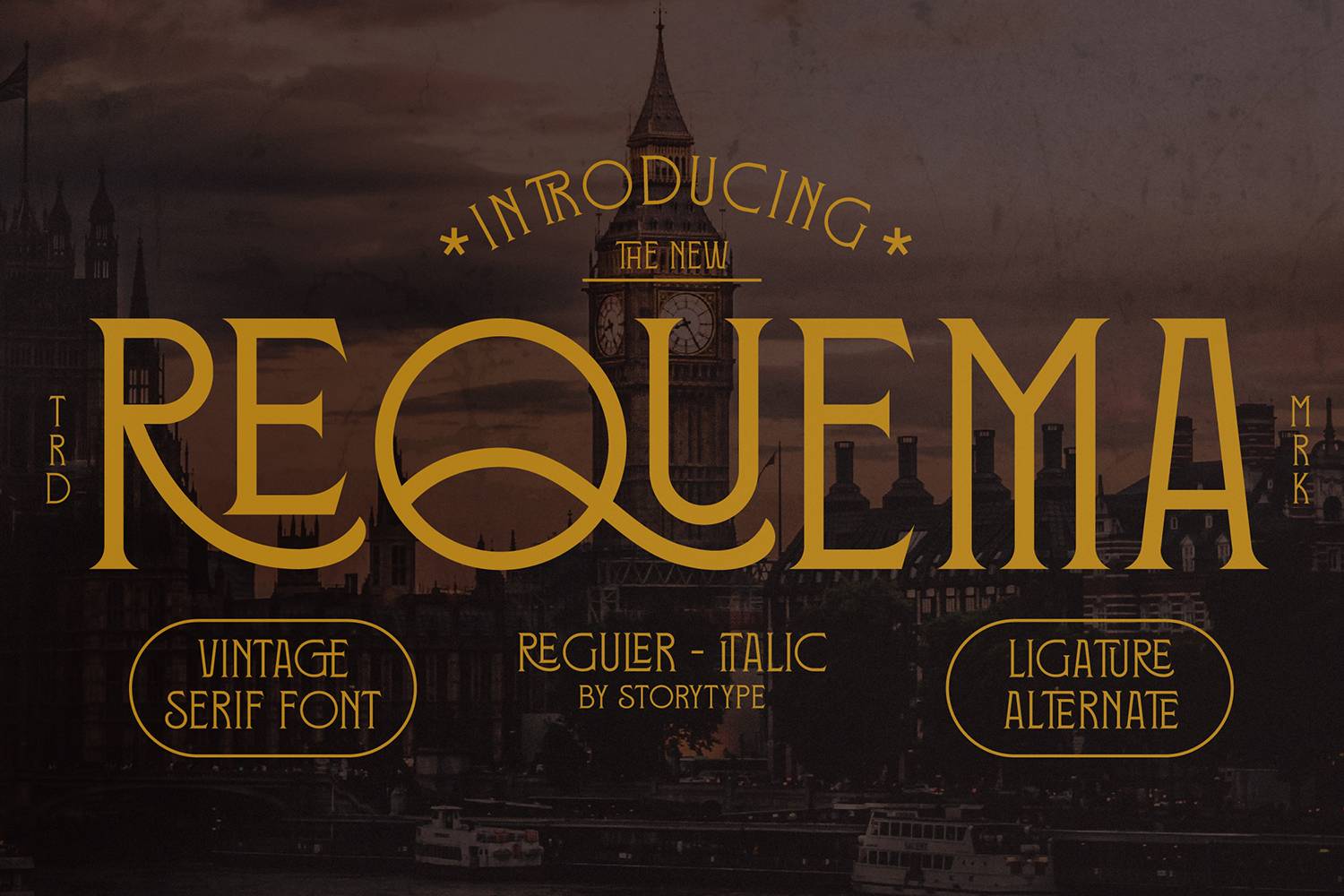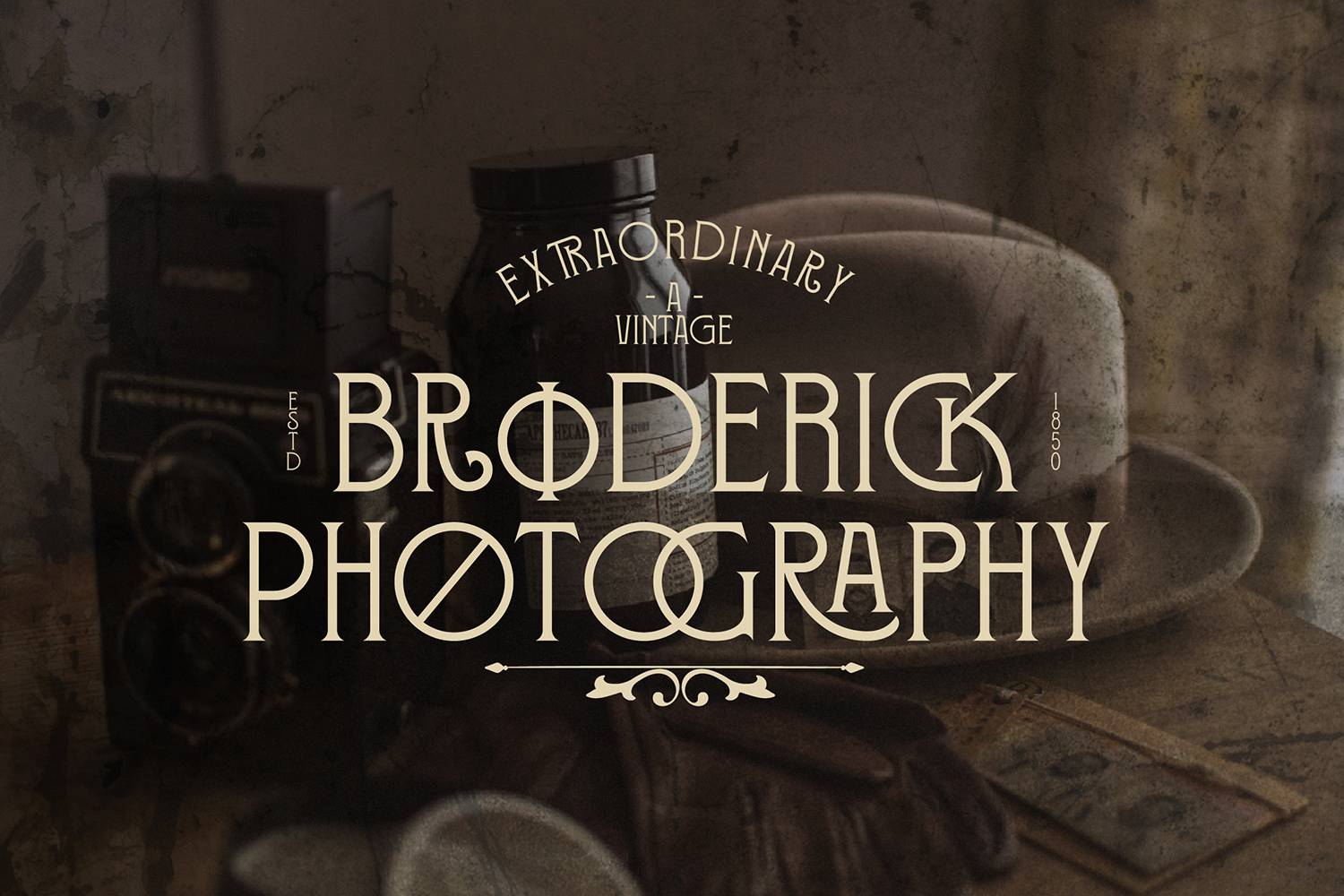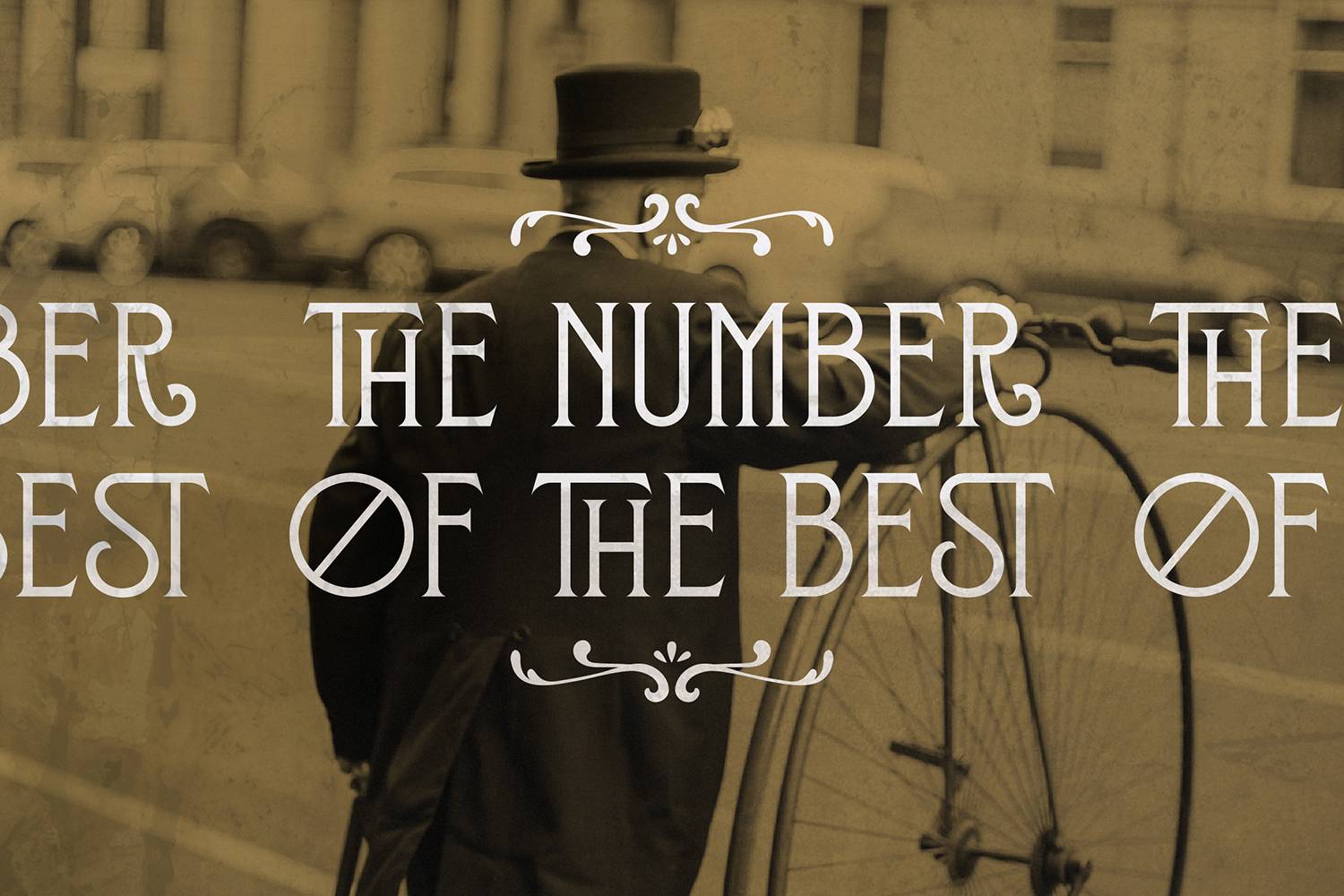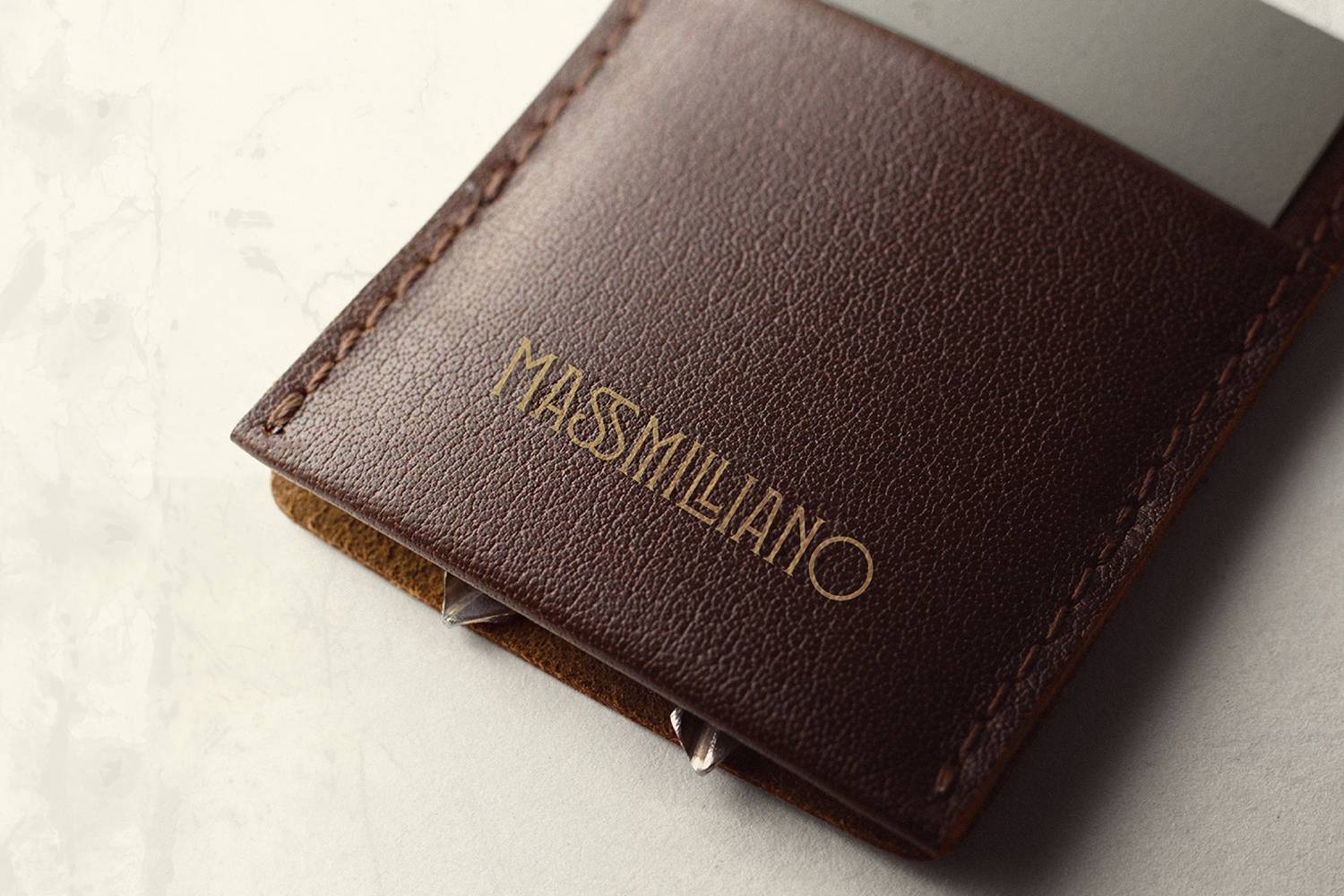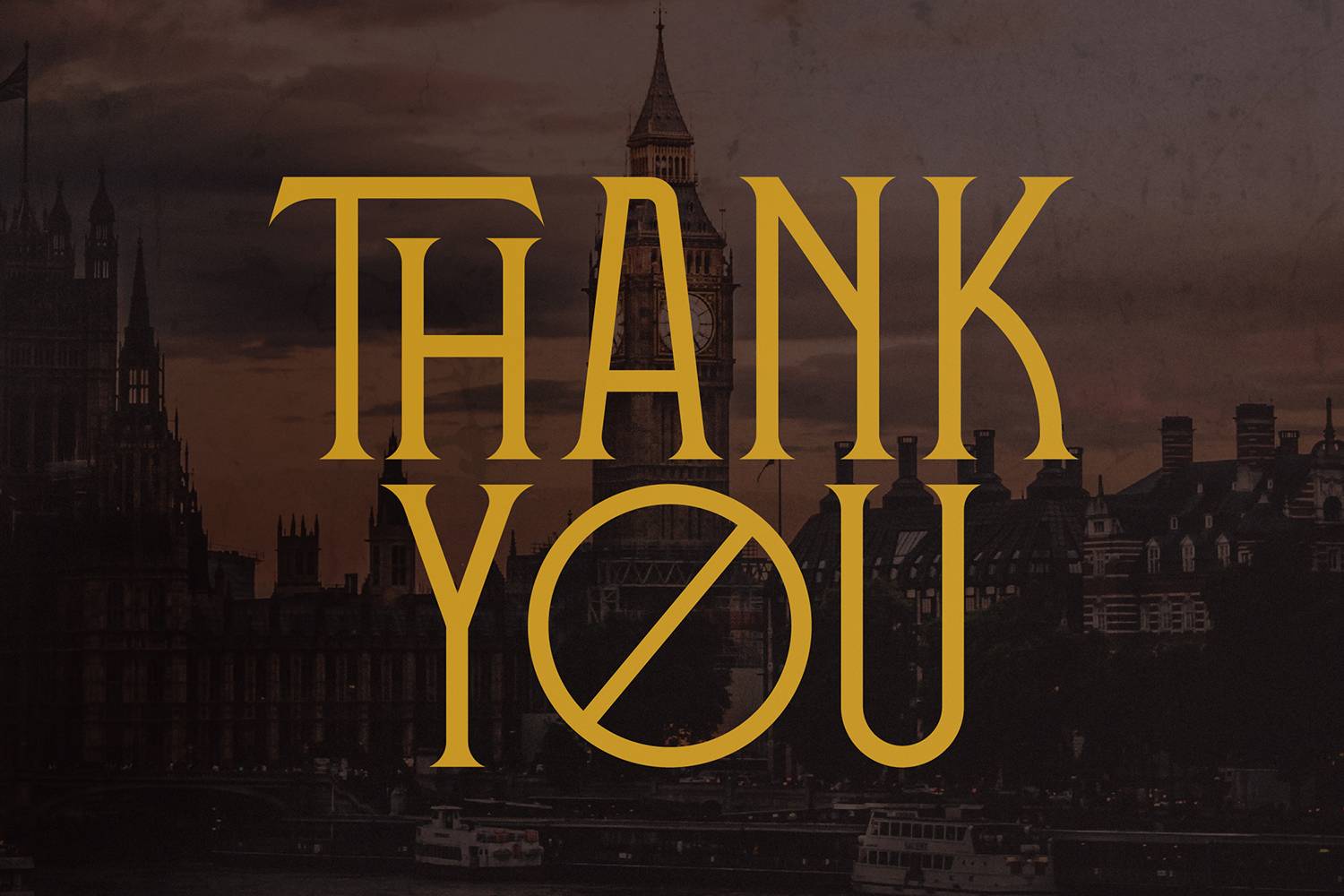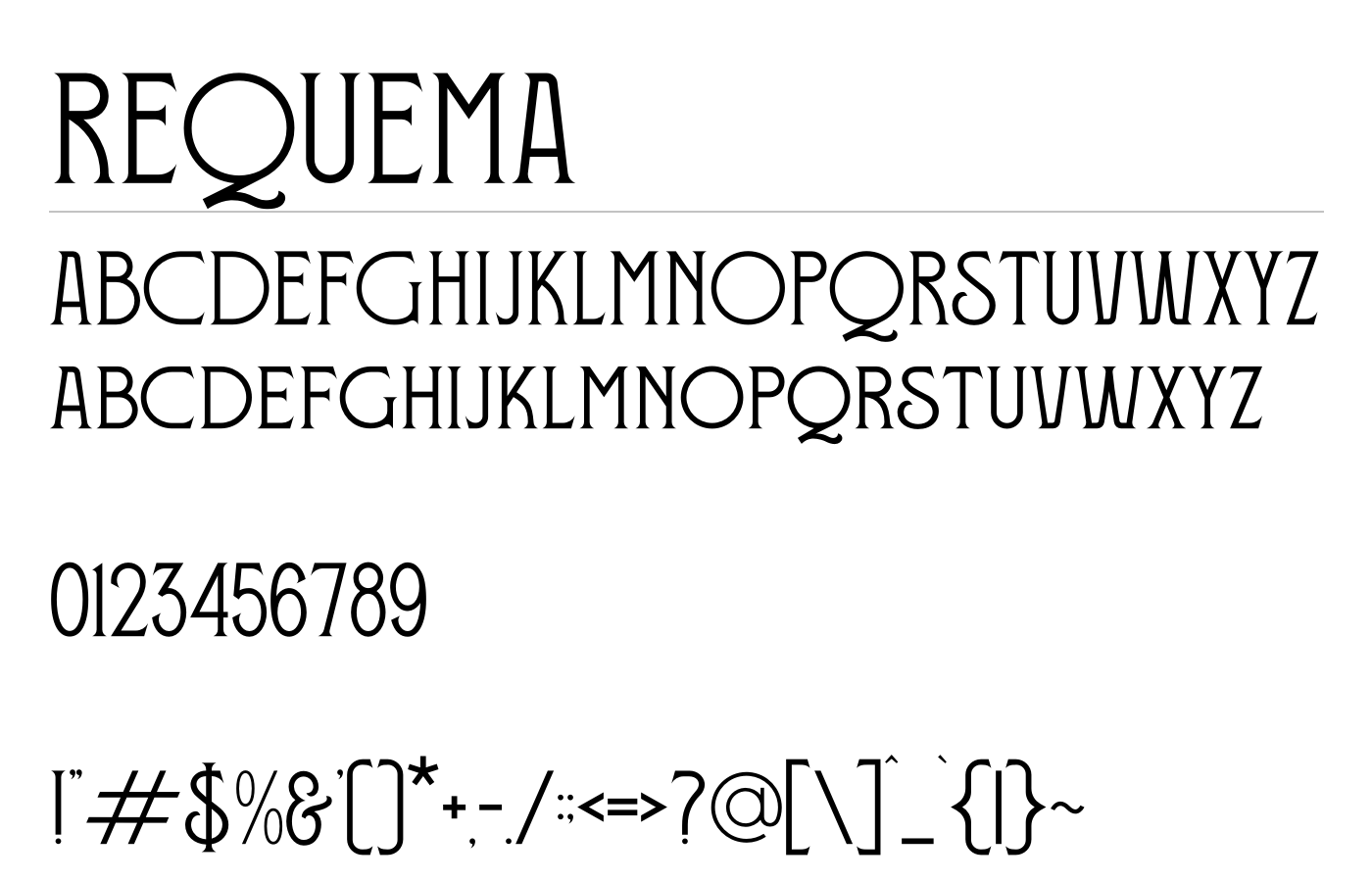
Requema is a slender serif font characterized by its tall, elegant letterforms and refined contrast between thick and thin strokes. Its narrow width and distinctive, slightly decorative serifs give it a sophisticated, vintage feel, making it perfect for luxury branding, editorial headlines, or stylish logos that require a touch of class and uniqueness. This font stands out with its artistic details, offering a timeless yet modern look ideal for upscale and creative design projects.
Requema Font
About Requema Font